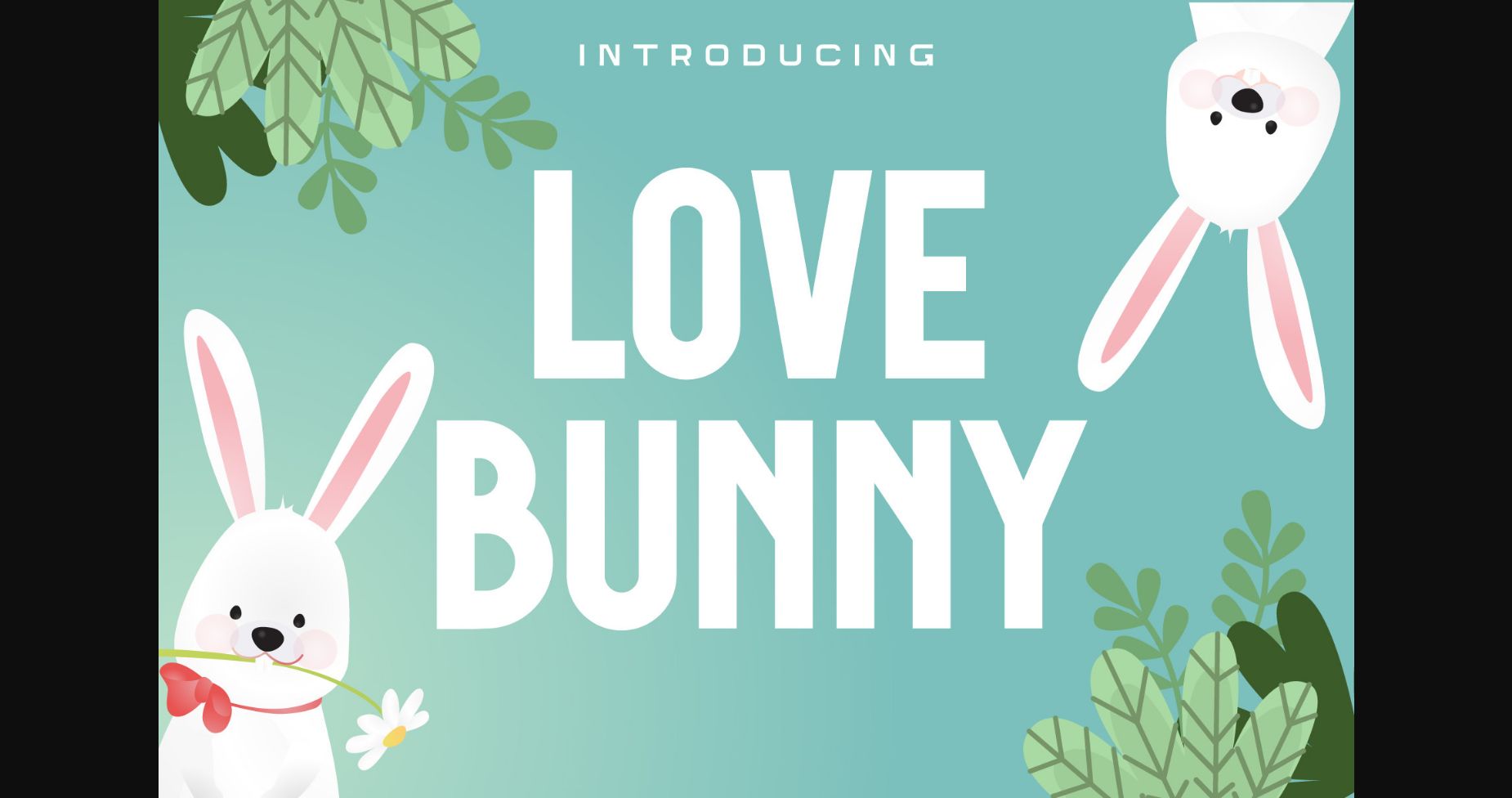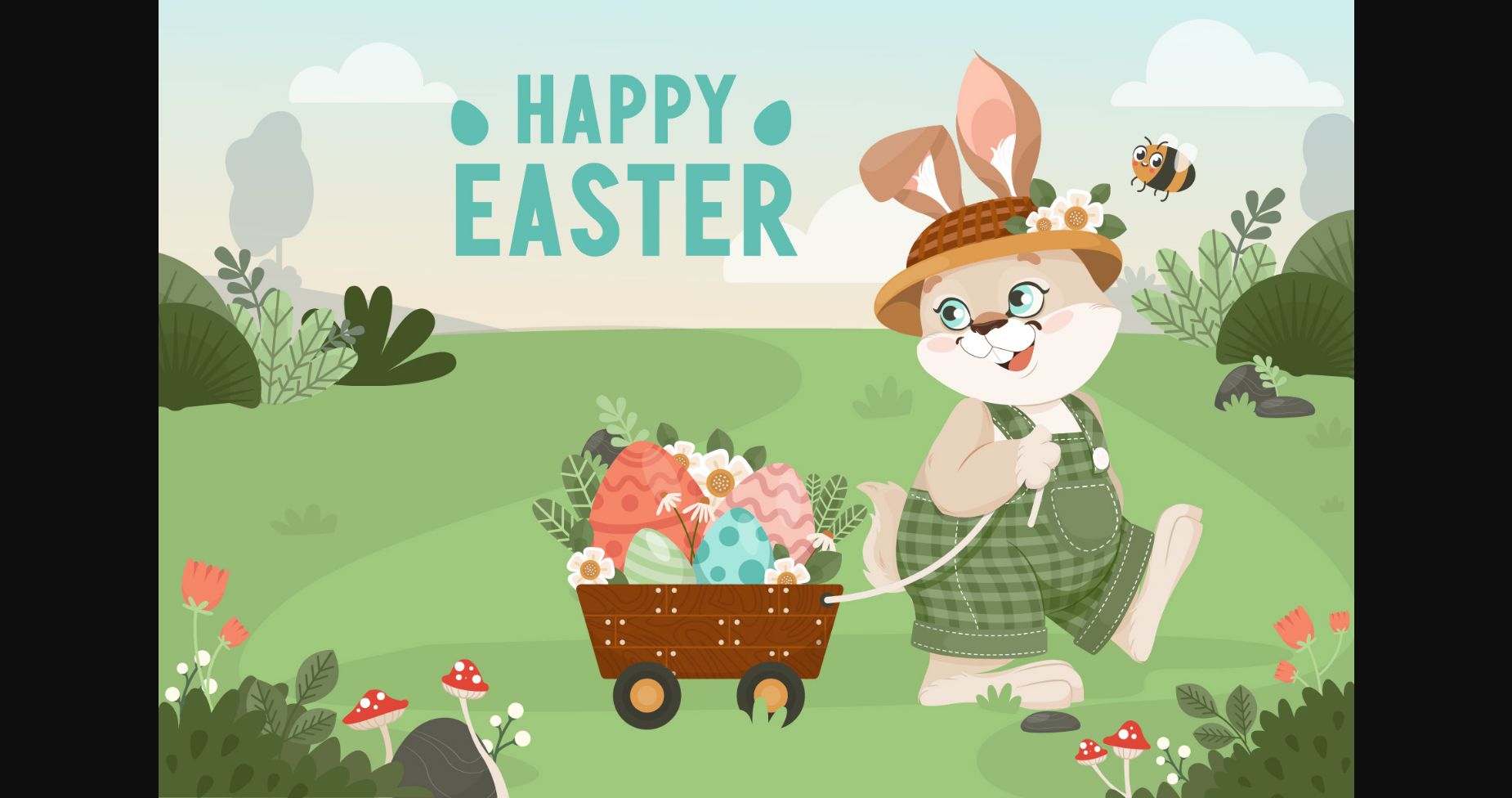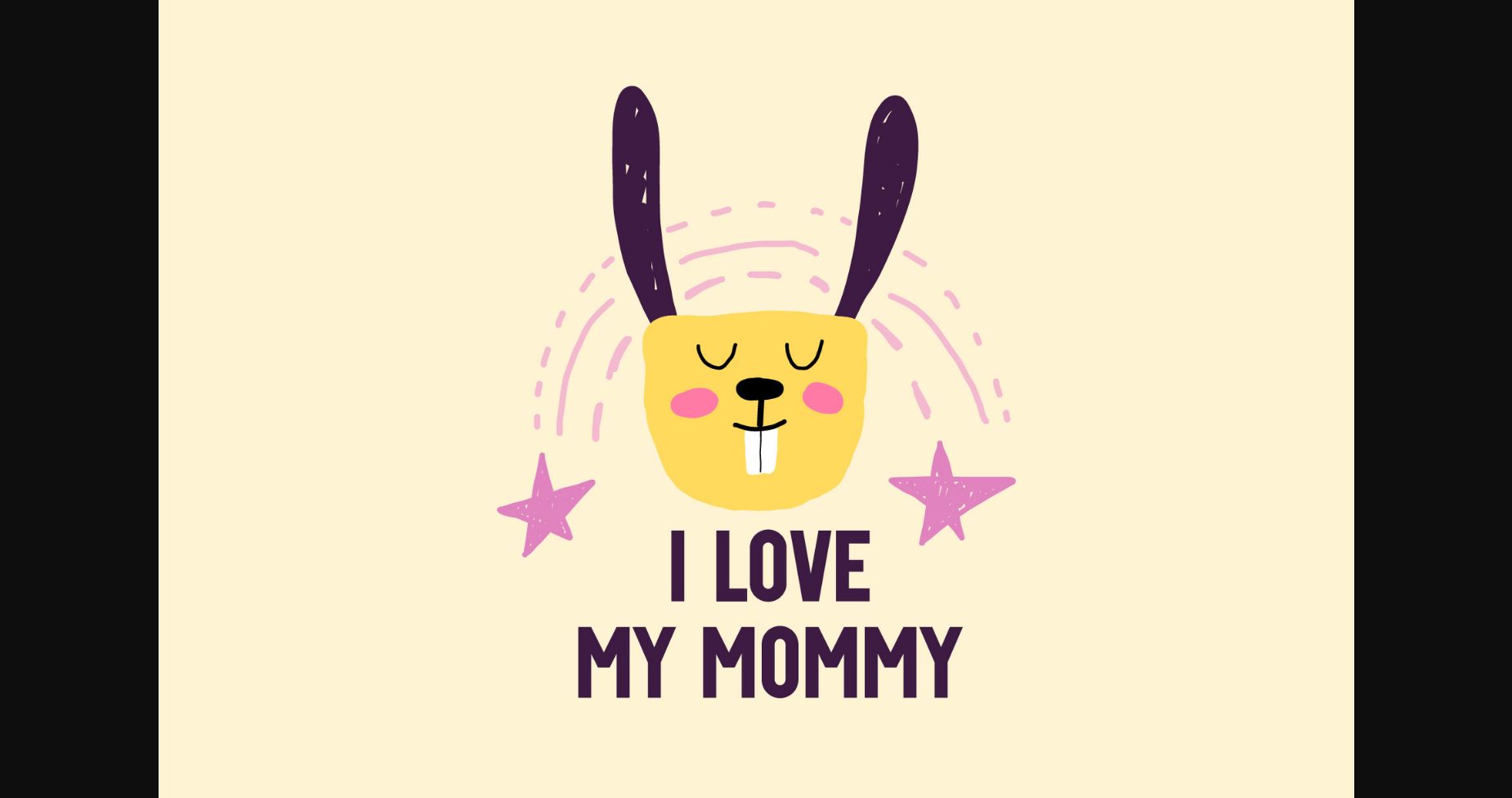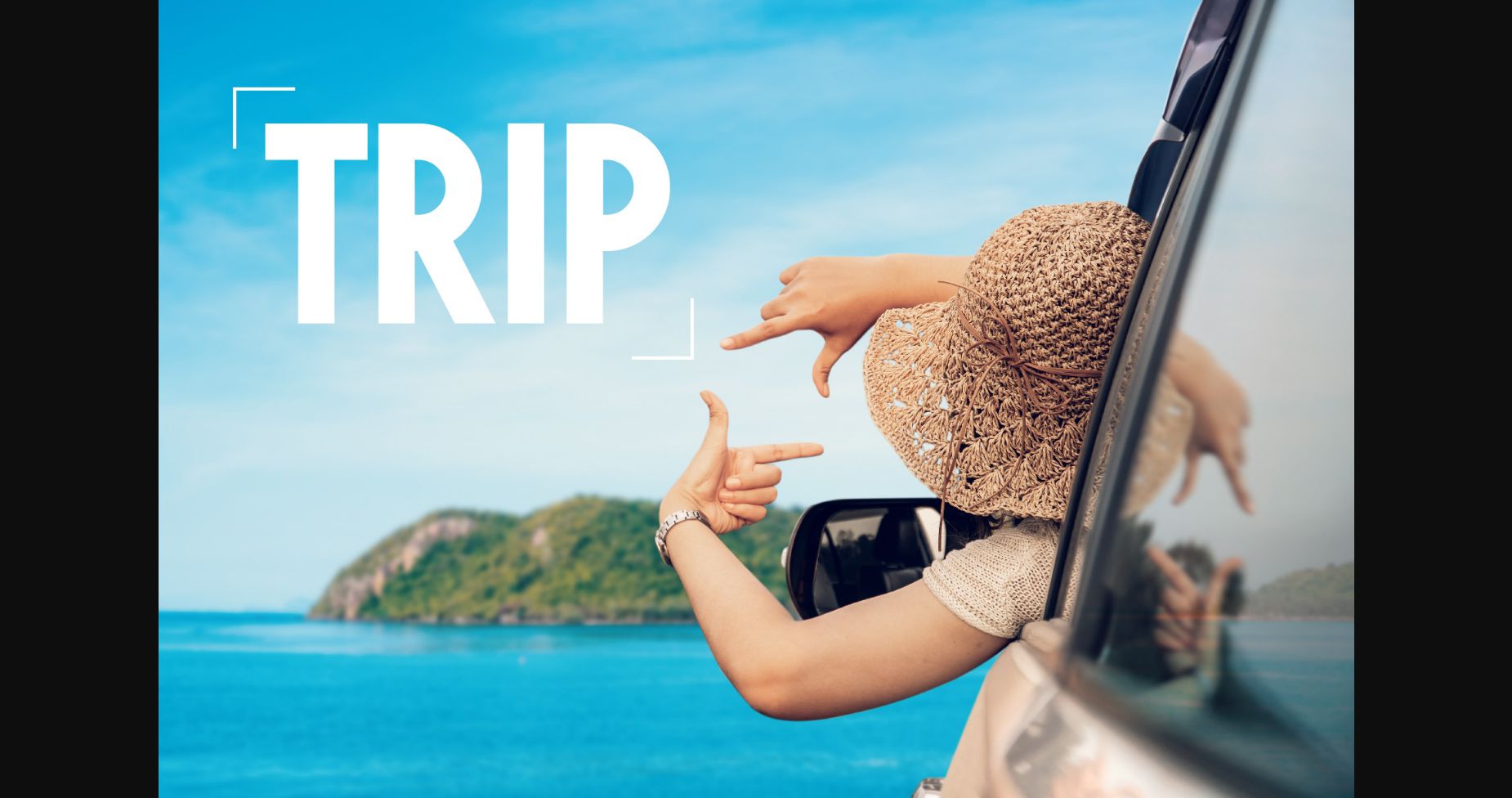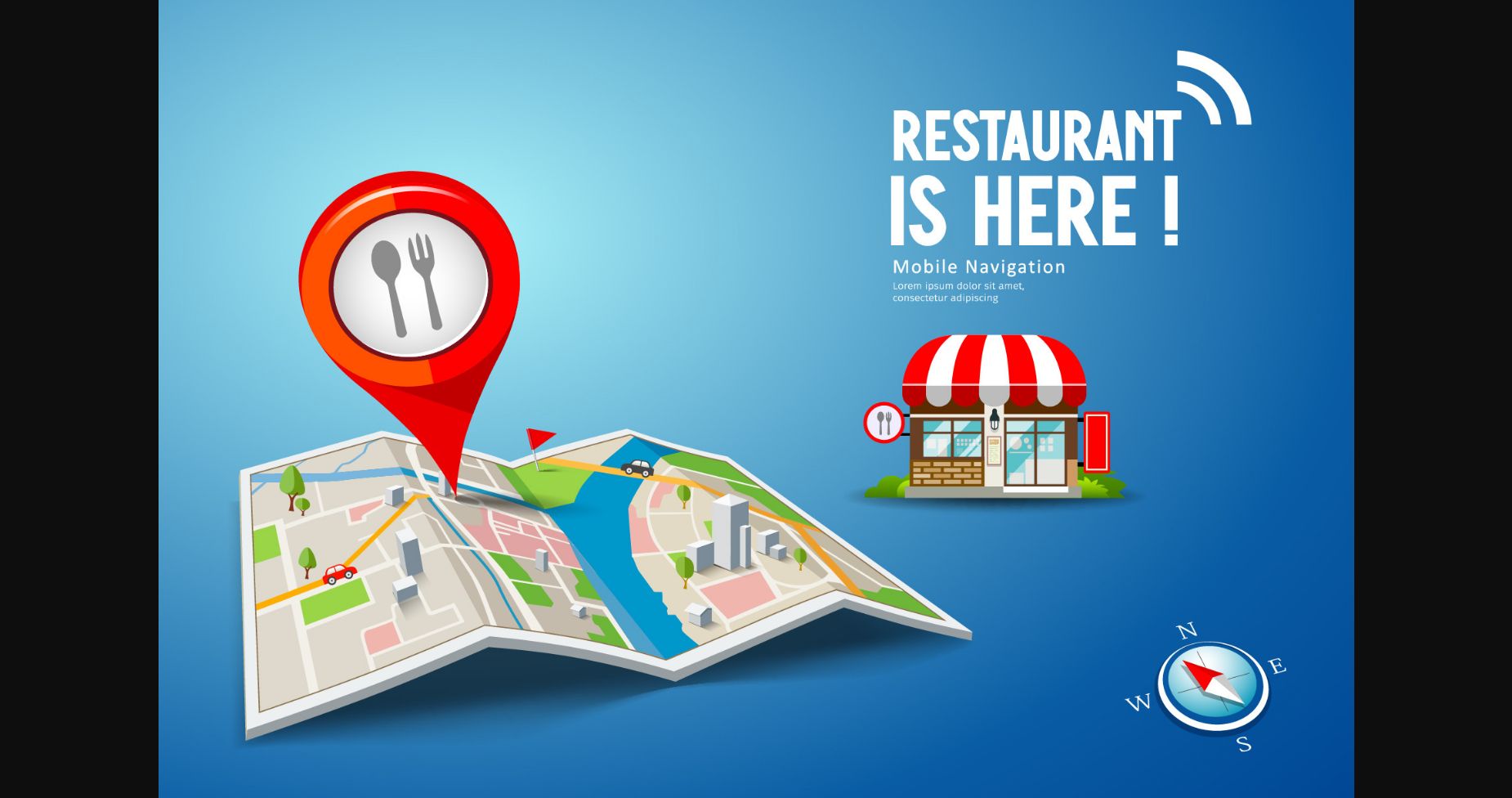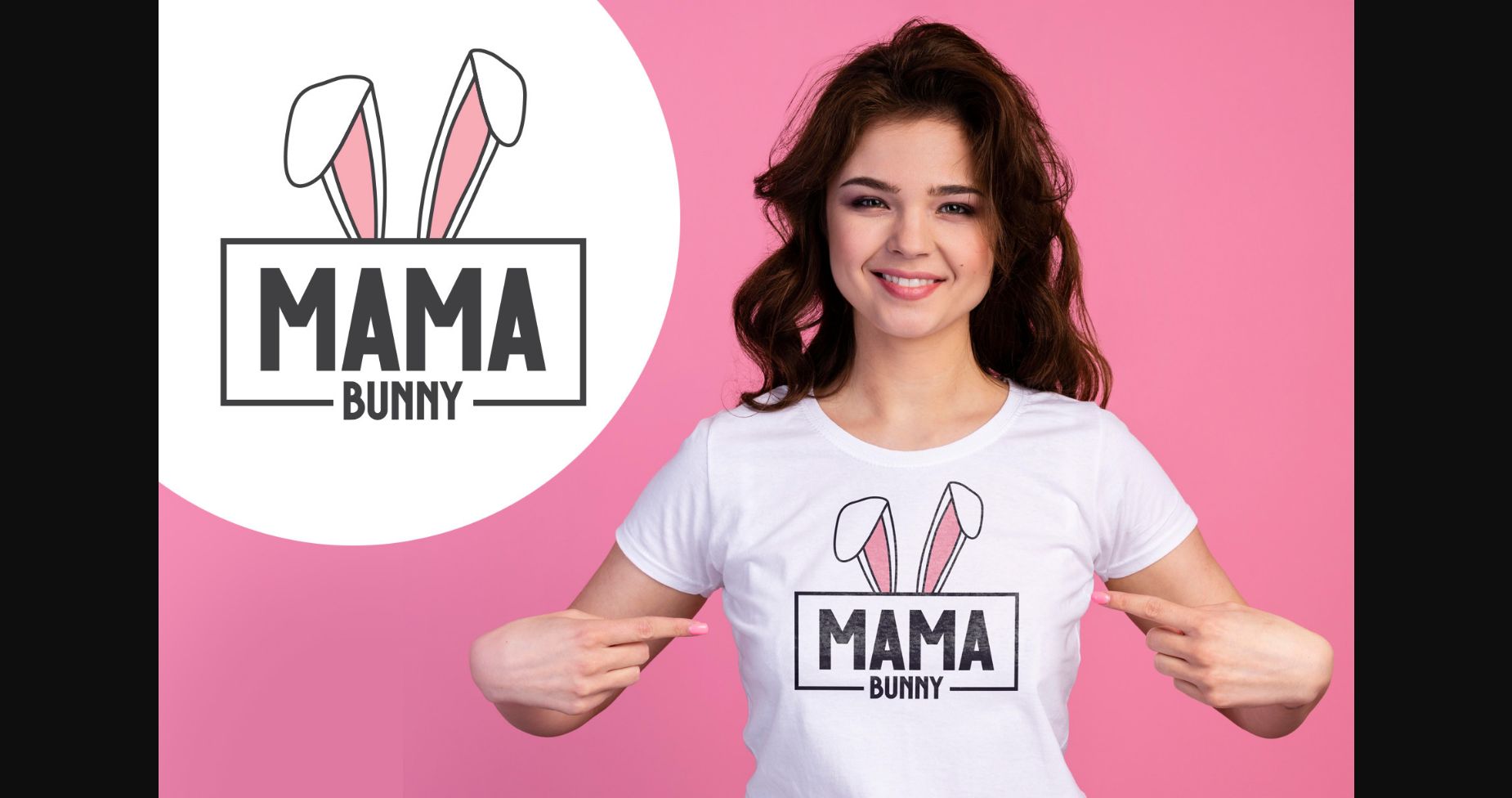
Love Bunny Font
About Love Bunny Font
Love Bunny is a simple and bold sans serif font. It is suitable for logos, headline font, corporate identity, brand identity, apparel industry, posters, music, movie, game, magazine, books, comics, cartoons, YouTube, Instagram, websites, or any of your creative design projects.